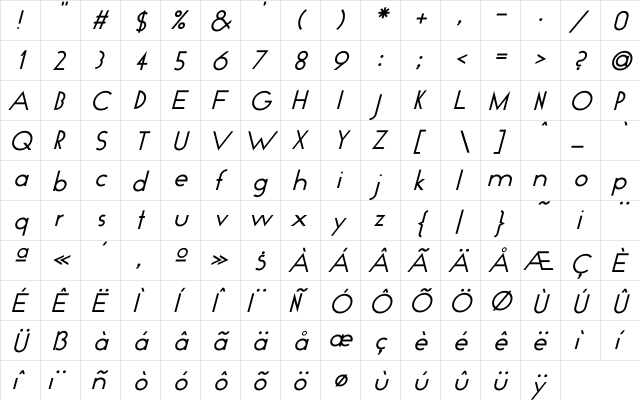
GeoPlain Italic Italic Font Preview
GeoPlain Italic Italic
GeoPlain Italic Italic Font Details
Design Context for GeoPlain Italic Typeface
GeoPlain Italic is a composed and adaptable typeface that performs quietly and consistently across a wide range of design contexts. The slanted form adds forward momentum and visual energy.